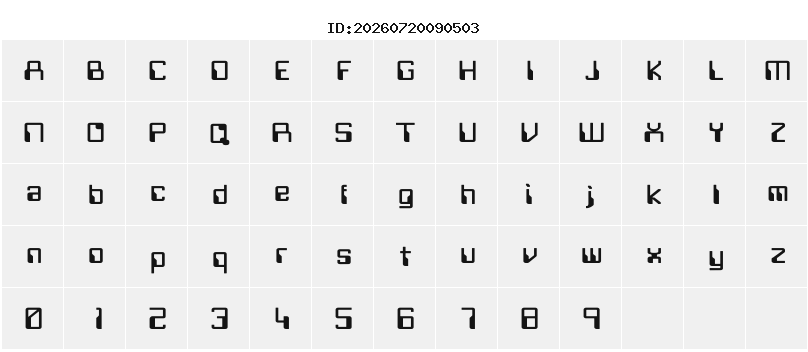
• Font Name: Future Wd
• Full Font Name: Future Wd
About Future Wd.ttf
Future Wd.ttf is a modern, elegant sans-serif font designed for ultimate readability and visual harmony. Perfect for branding, headlines, web design, and print materials.